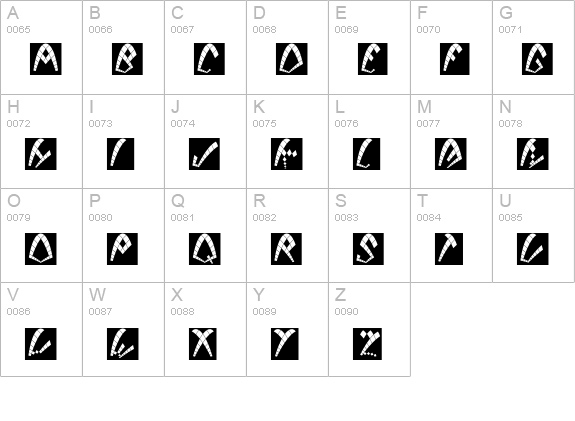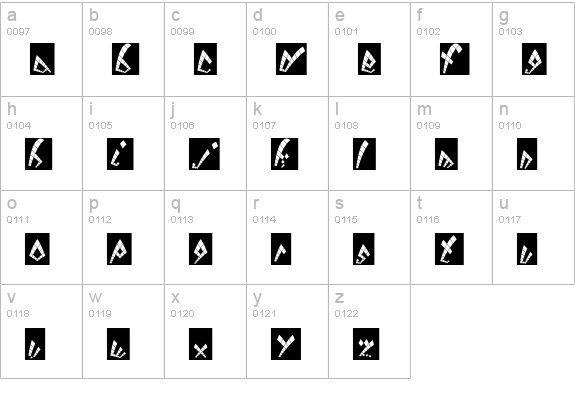
DackBrokenNegative Font Details
DackBrokenNegative font is a visually striking display font that embodies a broken and shattered aesthetic. With its jagged edges and fragmented design, this font exudes a sense of chaos and destruction. Each letter appears to be cracked and disjointed, creating a unique and eye-catching effect. Despite its broken appearance, DackBrokenNegative font is surprisingly legible, making it perfect for headlines, posters, and other design projects that require a bold and attention-grabbing typeface. It adds a touch of edginess and rebellion to any design, making it stand out from the crowd. One of the best things about DackBrokenNegative font is that it is completely free to download at FontsMarket.com. This means that you can add this striking font to your collection without spending a dime. Whether you are a professional designer or a hobbyist, having access to high-quality fonts like DackBrokenNegative font can greatly enhance your creative projects. So, if you are looking for a font that breaks the mold and adds a touch of daring to your designs, look no further than DackBrokenNegative font. It is freely available to download at FontsMarket.com, allowing you to unleash your creativity without breaking the bank. Get your hands on this unique font today and watch your designs come to life with a touch of broken brilliance.